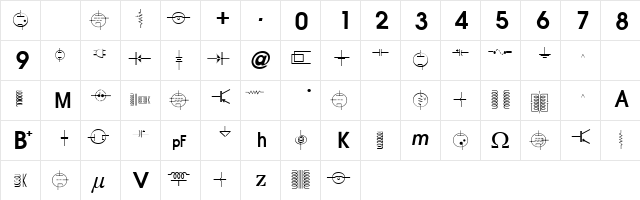
vac tube symbols v1.2 Regular
Design Context for vac tube symbols v1.2 Typeface
vac tube symbols v1.2 is a composed and adaptable typeface that performs quietly and consistently across a wide range of design contexts.